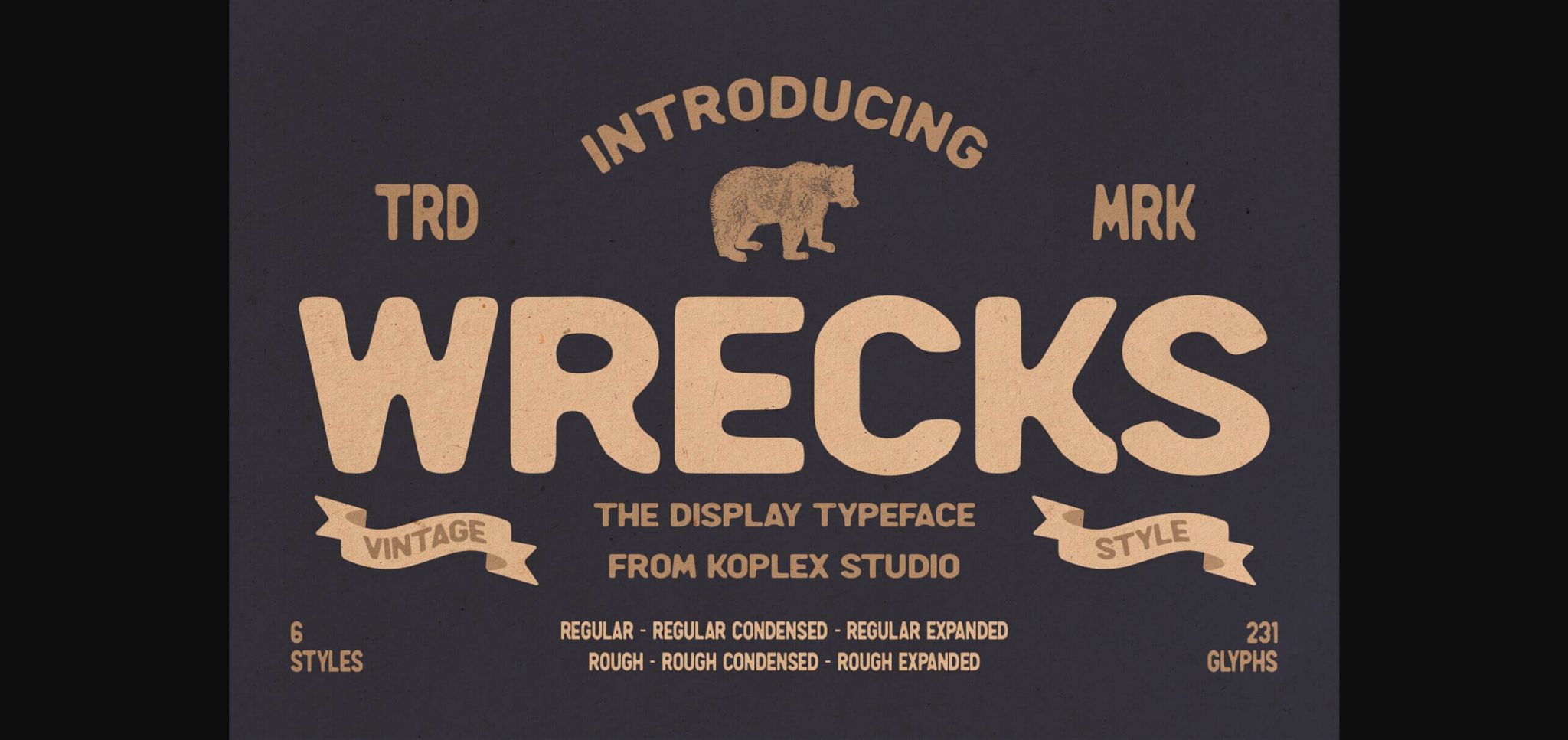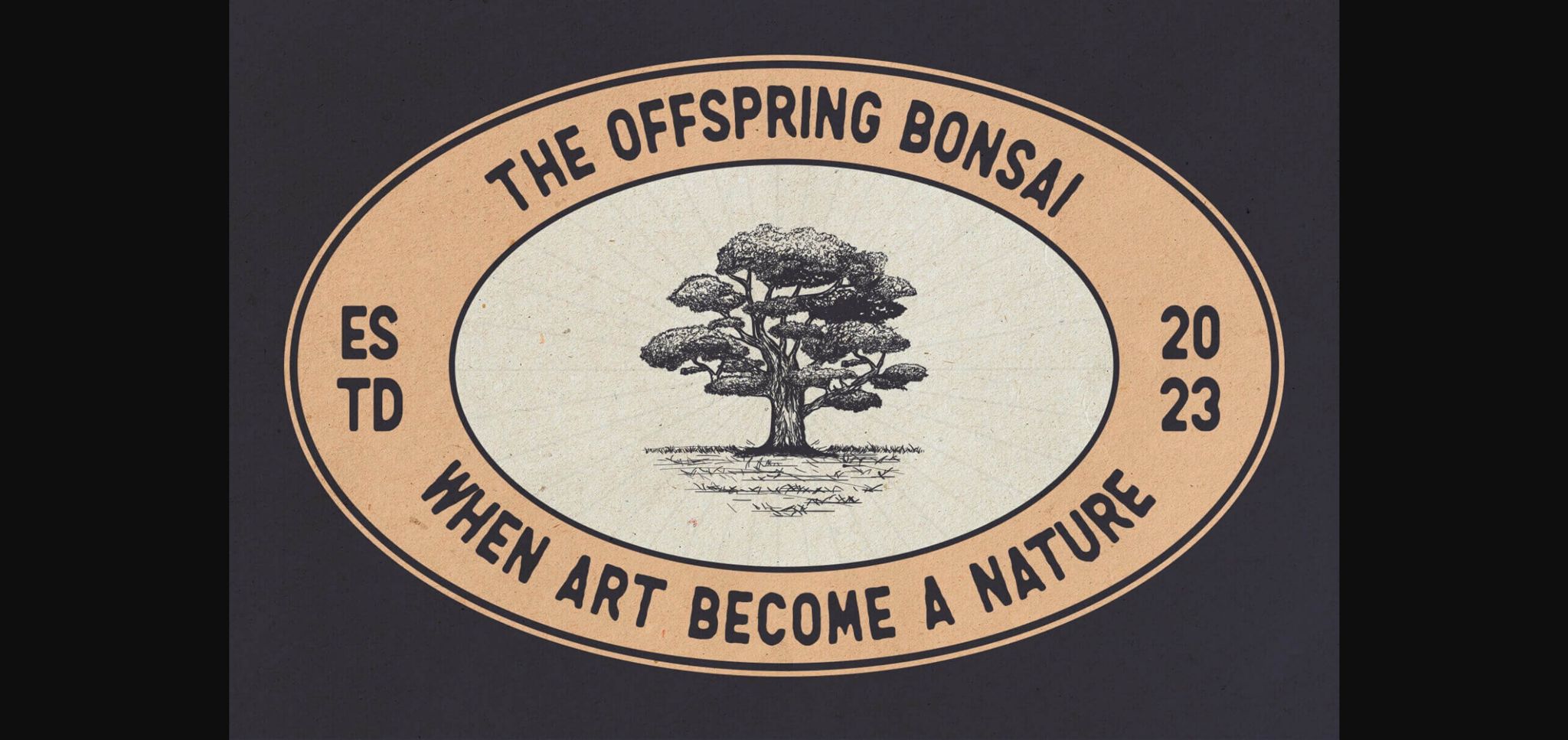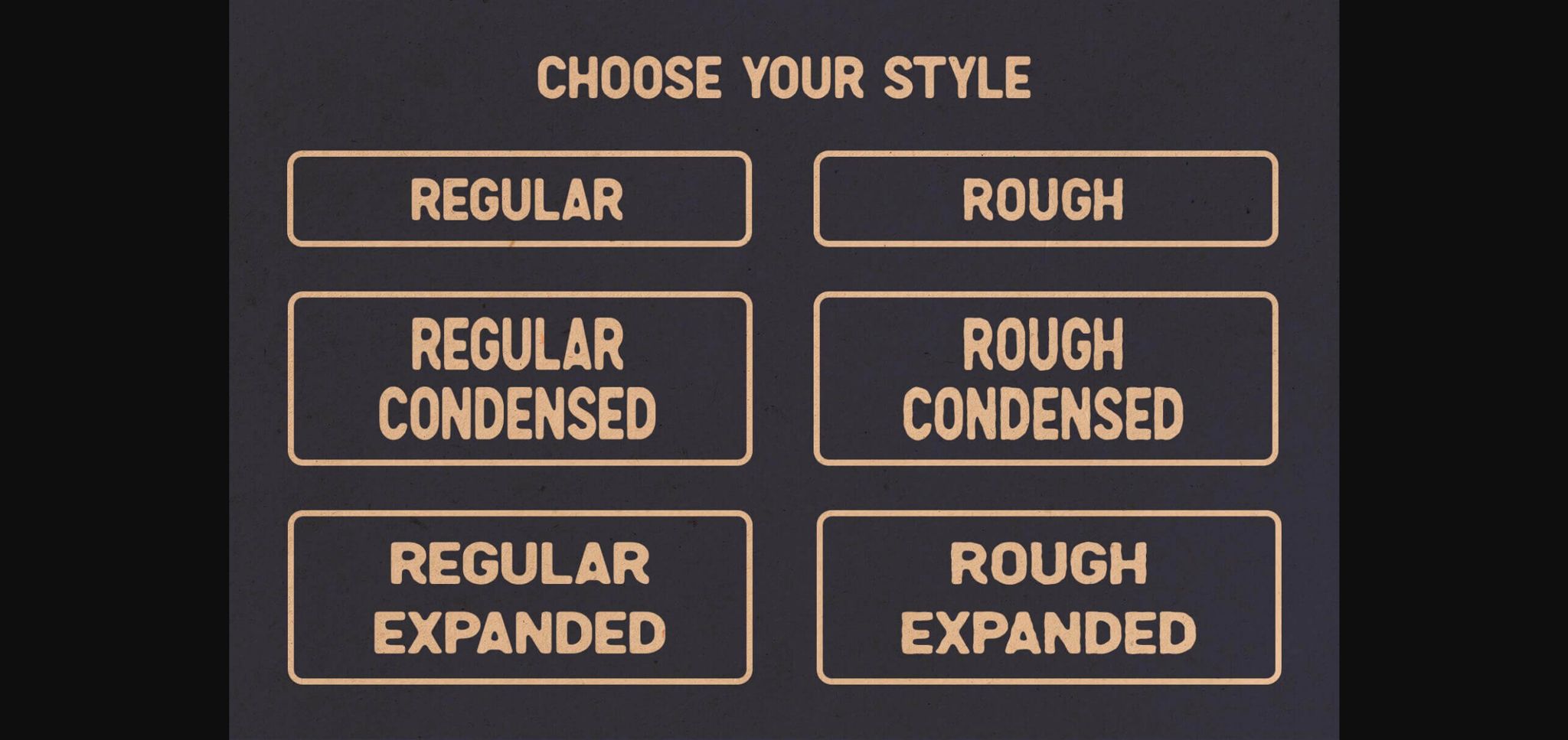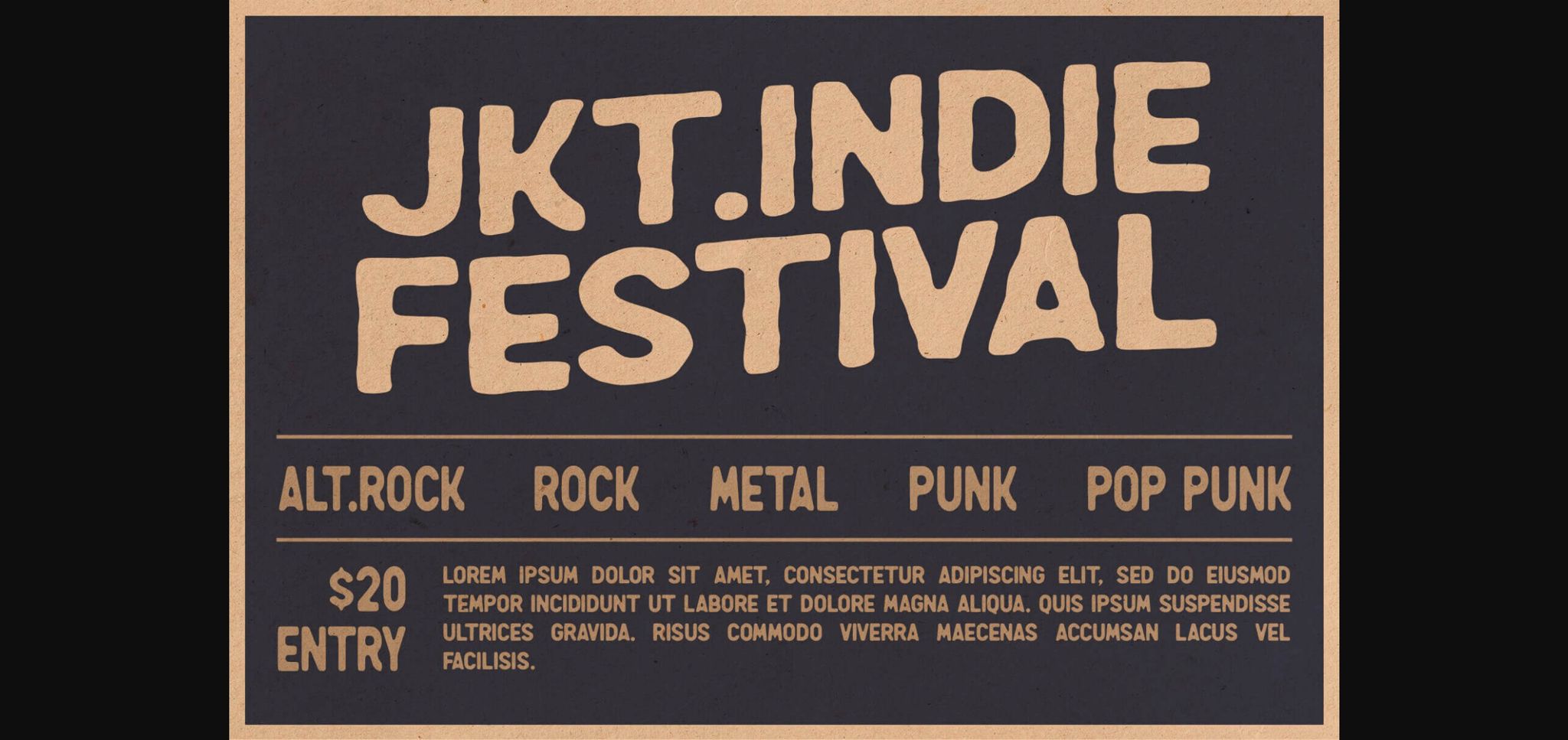
About Wrecks – Vintage Font
Wrecks – Vintage Font is a captivating typeface that effortlessly transports you back in time with its nostalgic charm. This font exudes an aura of authenticity and retro appeal, making it the perfect choice for a wide range of creative projects. Whether you’re designing a classic poster, crafting a vintage-inspired logo, or working on a retro-themed website, Wrecks is the ideal companion.